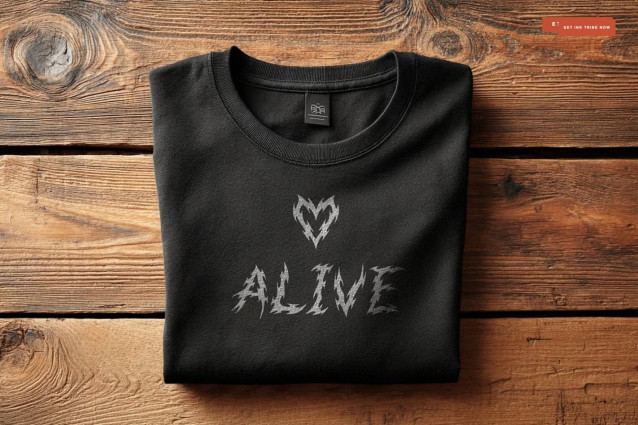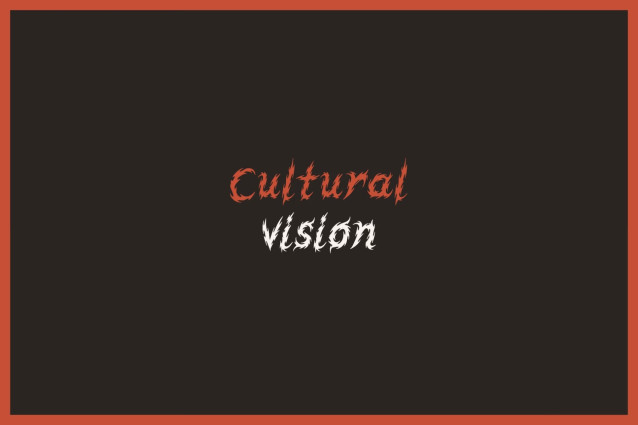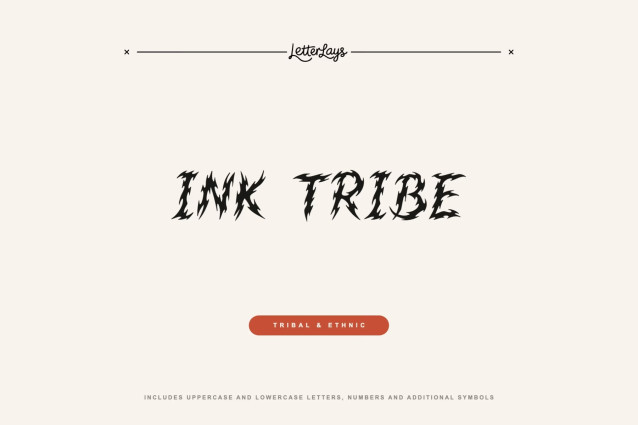
🖋️ Ink Tribe is an ethnic and tattoo-inspired display font designed to bring a sharp ritual vibe to your creative projects. This digital download features clean ink lines and a symbolic cultural aesthetic, making it perfect for tribal branding, permanent-style editorial layouts, and high-impact tattoo-inspired design. Its expressive, inked letterforms capture a sense of ancient tradition and professional polish that will mark any visual identity with soul.
🖋️ Whether you are crafting a ritual logo or a cultural headline, Ink Tribe provides the sharp symbolic energy and ethnic attitude needed for state-of-the-art designs. The font’s unique tattoo-style glyphs and tribal aesthetic allow for endless creative possibilities across various digital platforms. Transform your work with this premium typeface that seamlessly blends ethnic elegance with the power of permanent storytelling for your brand. 🖋️